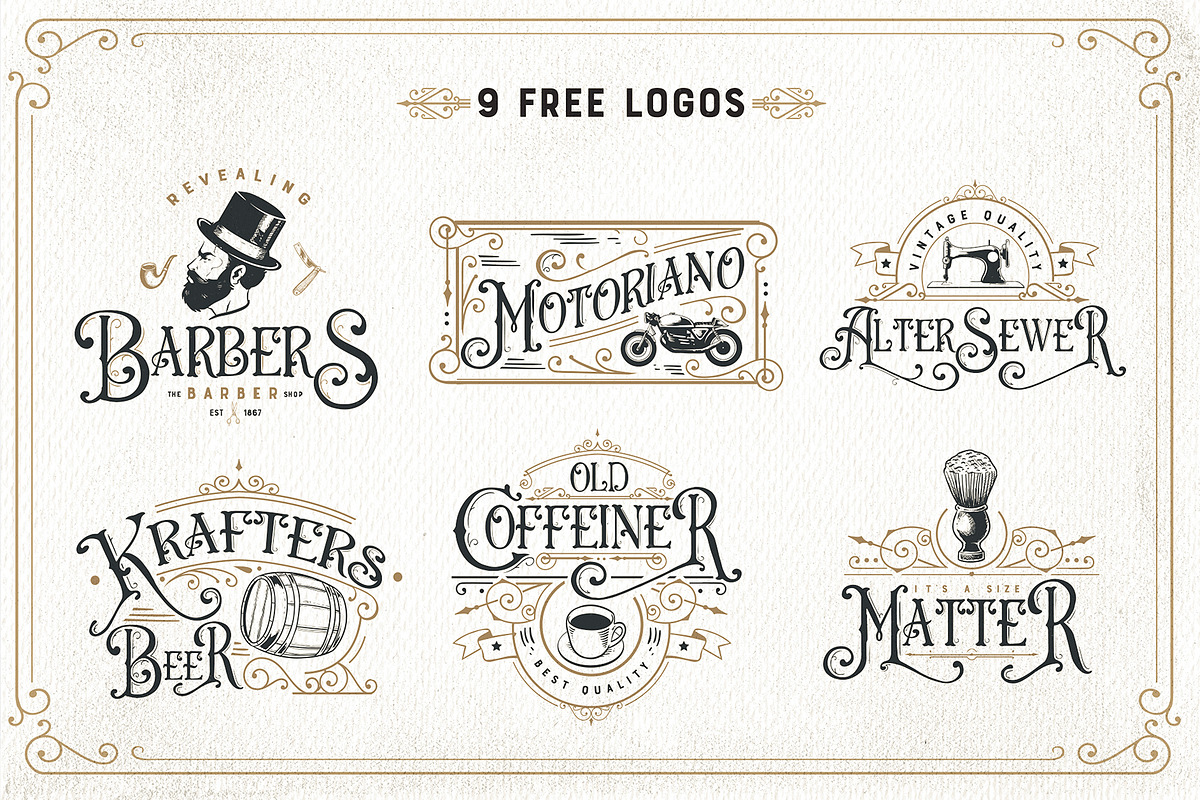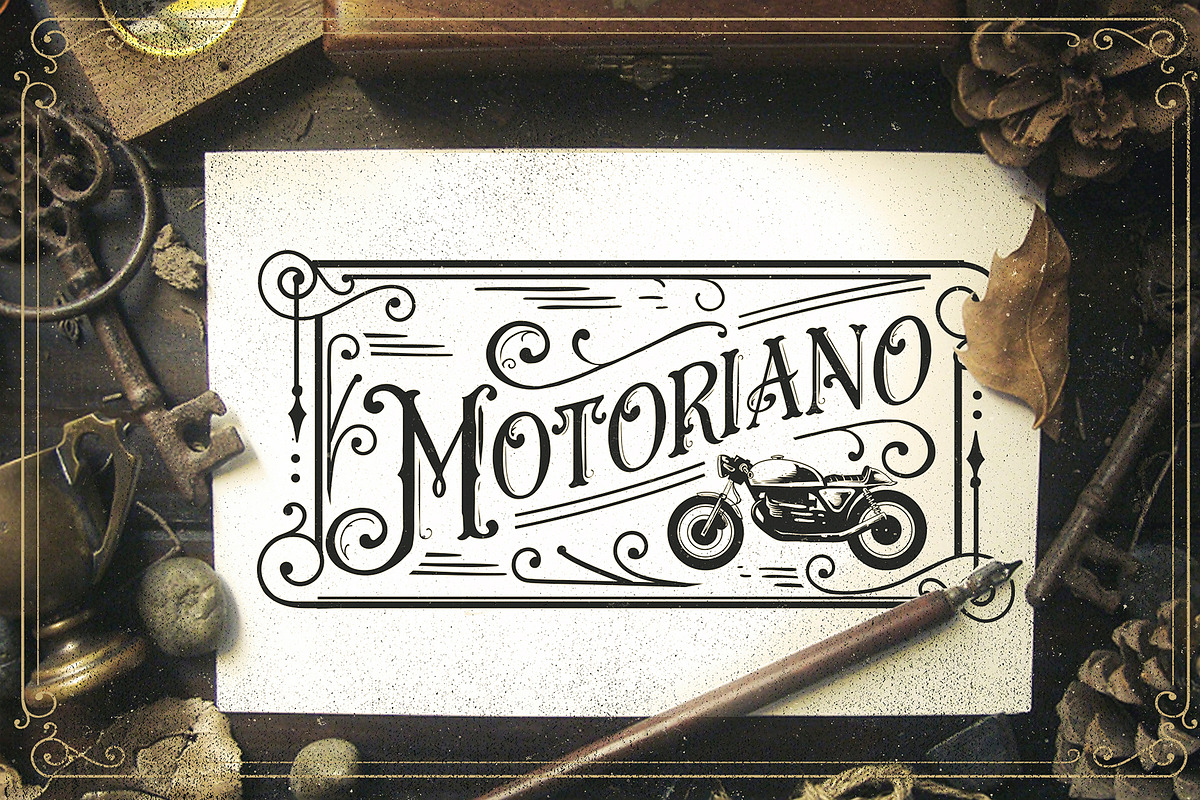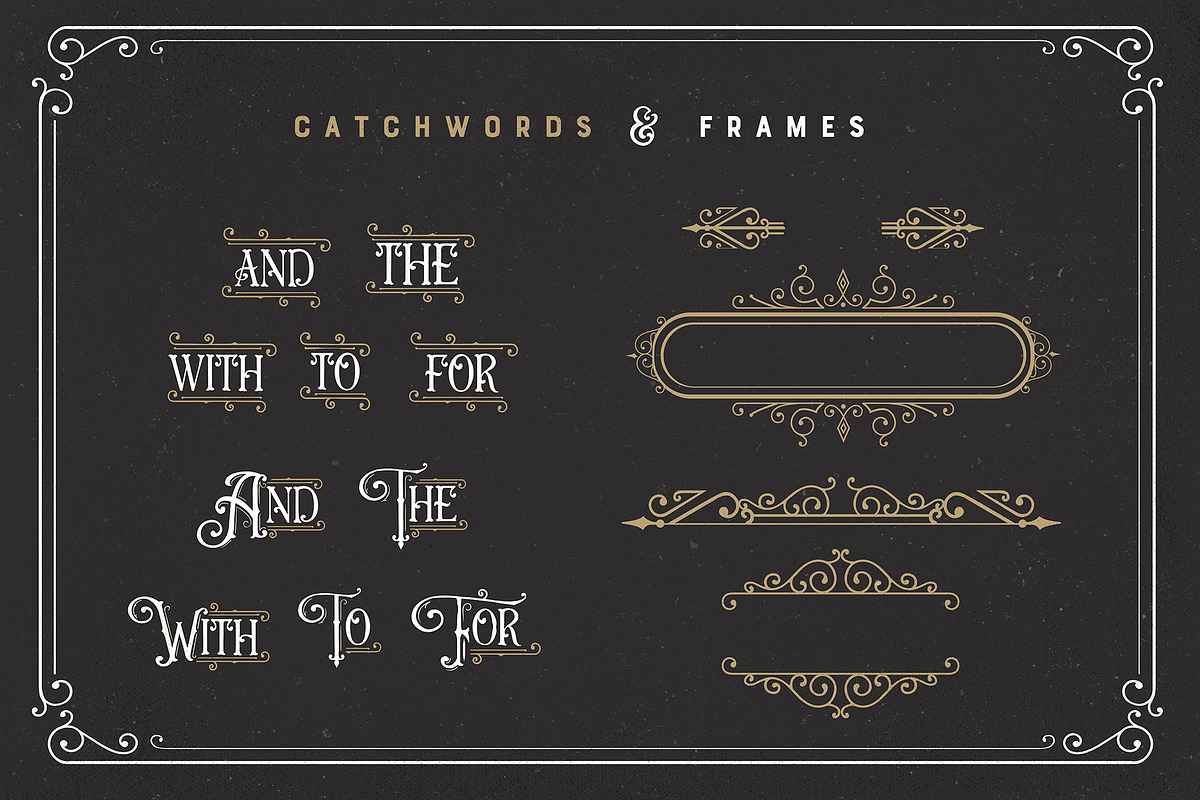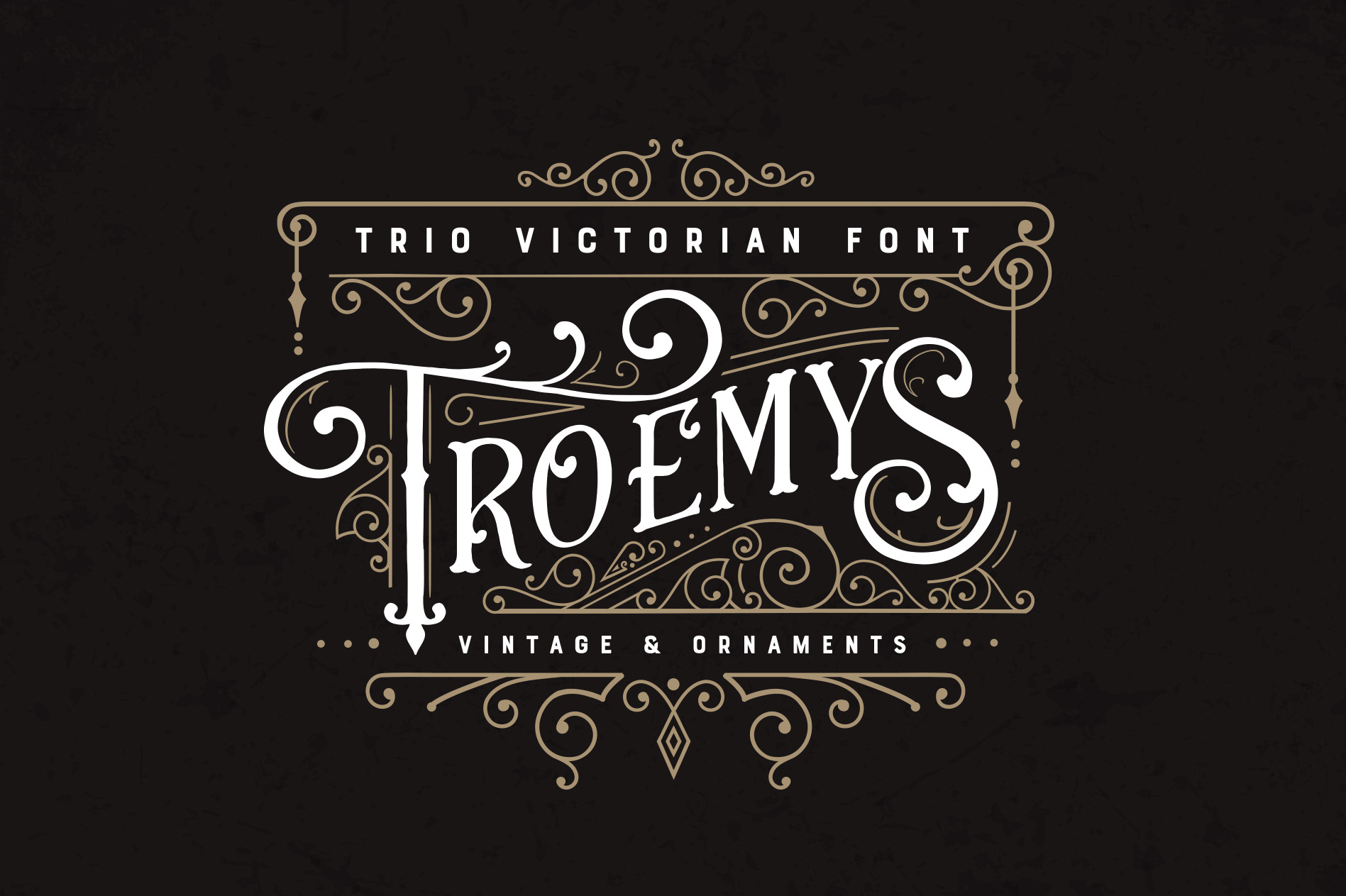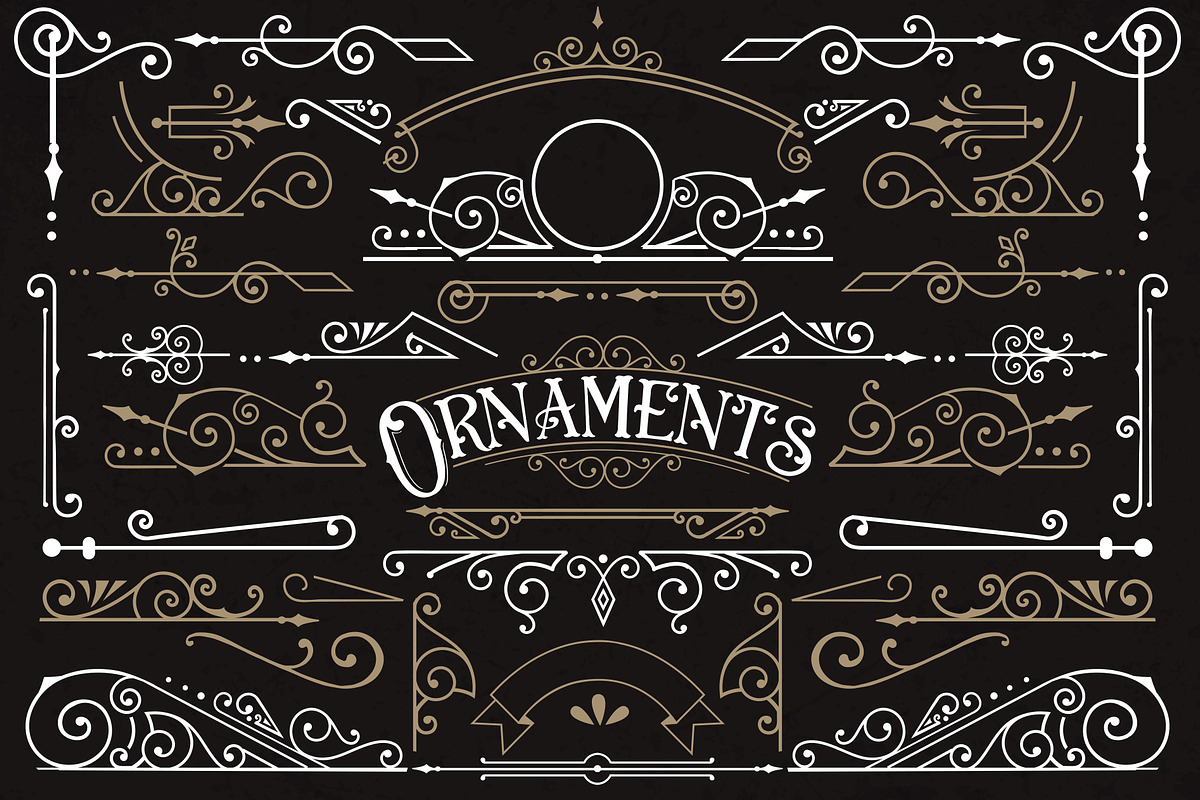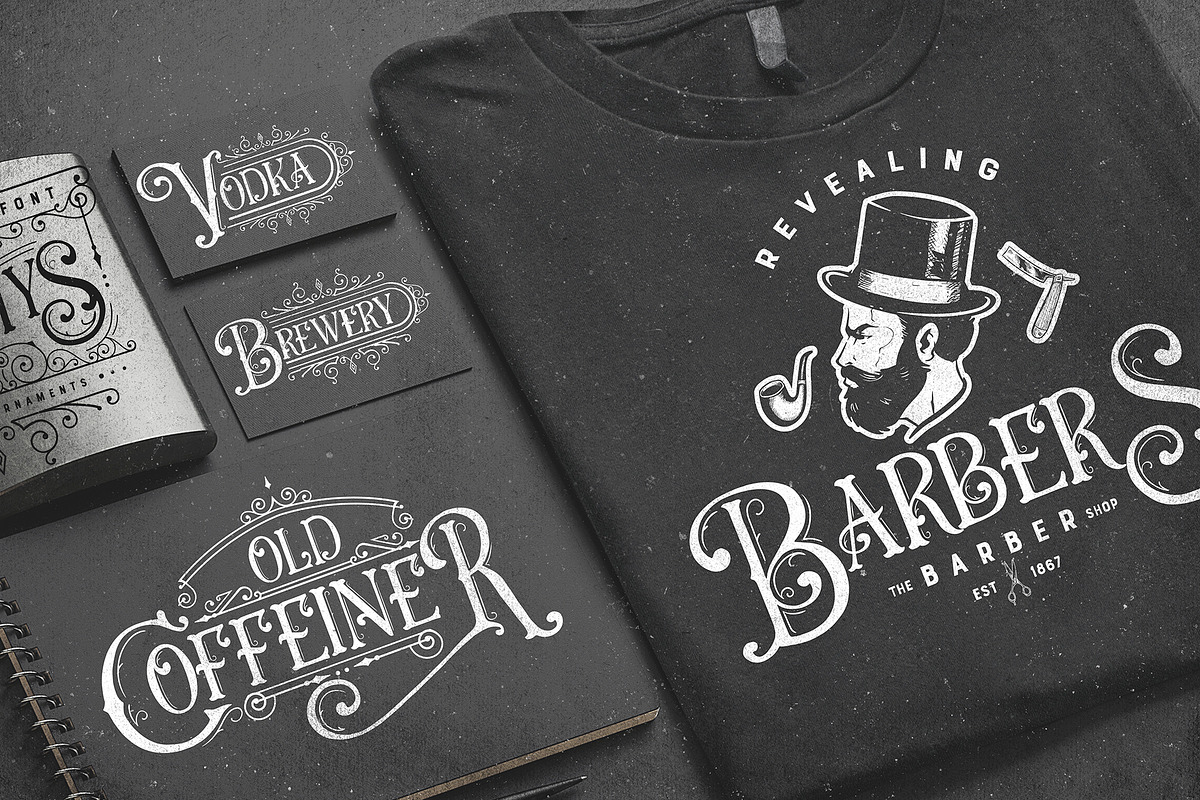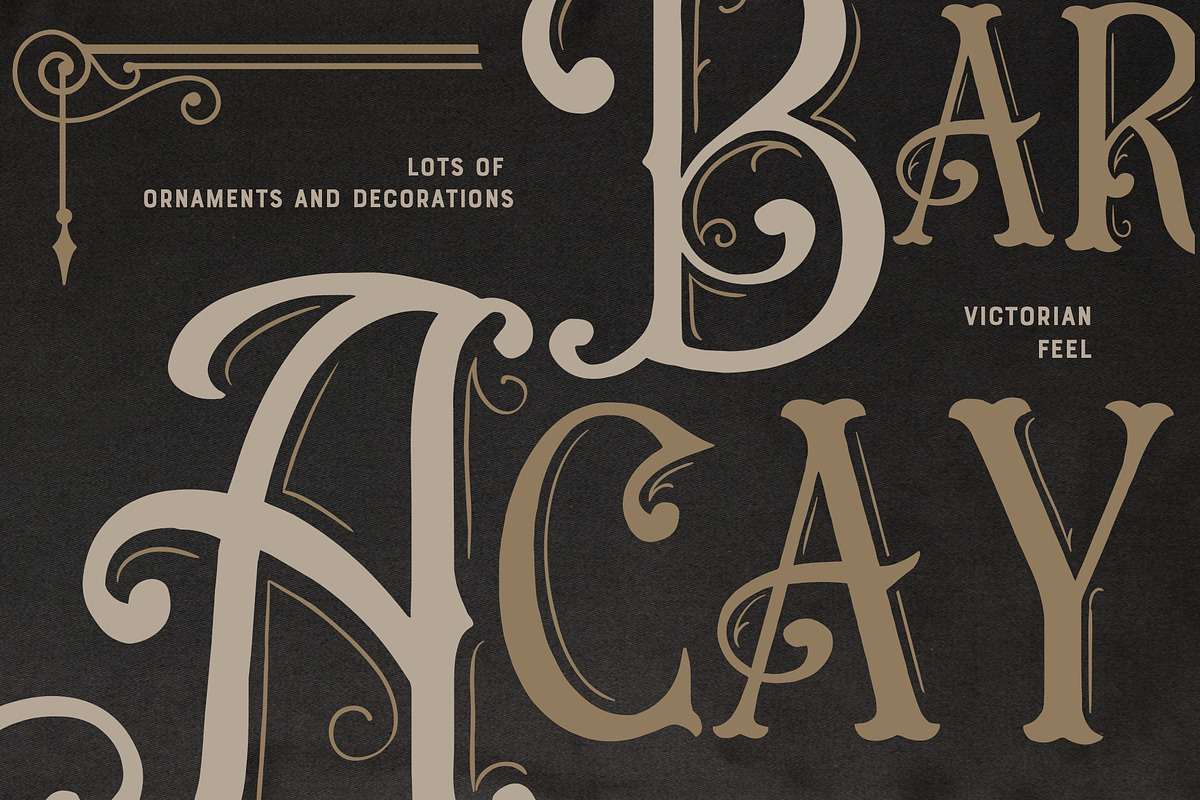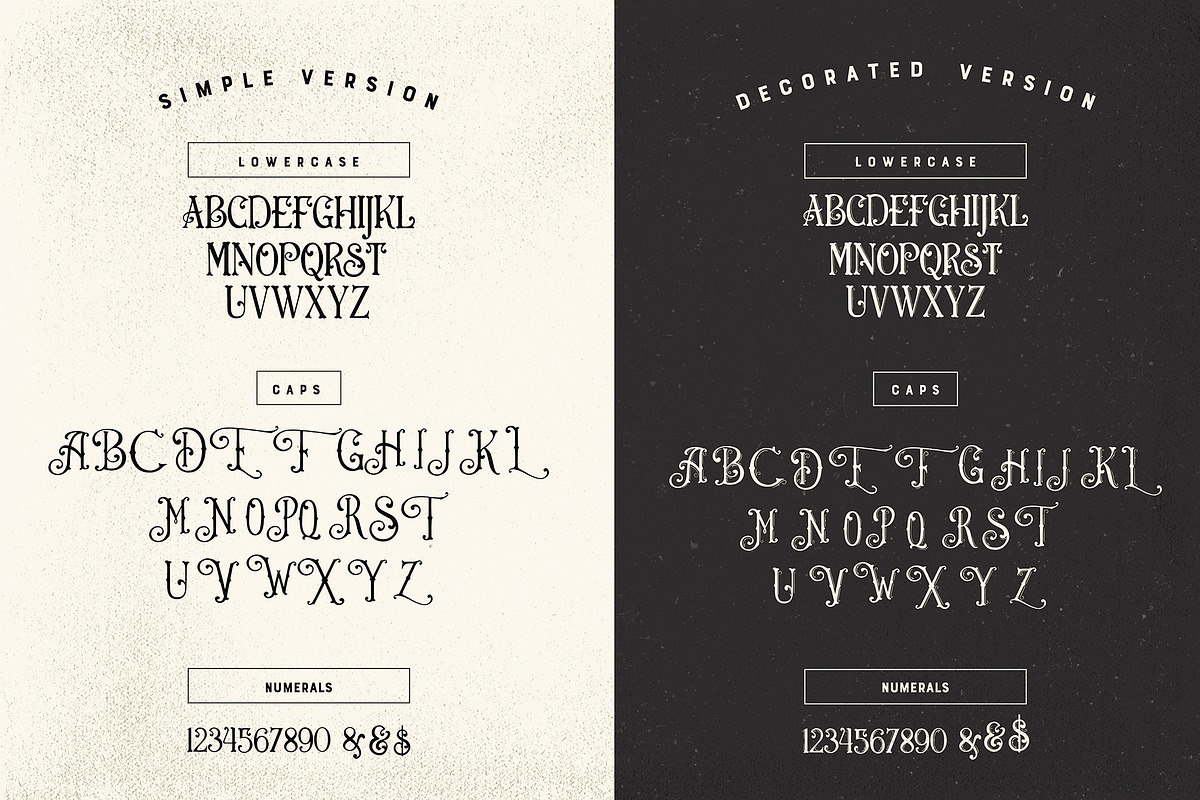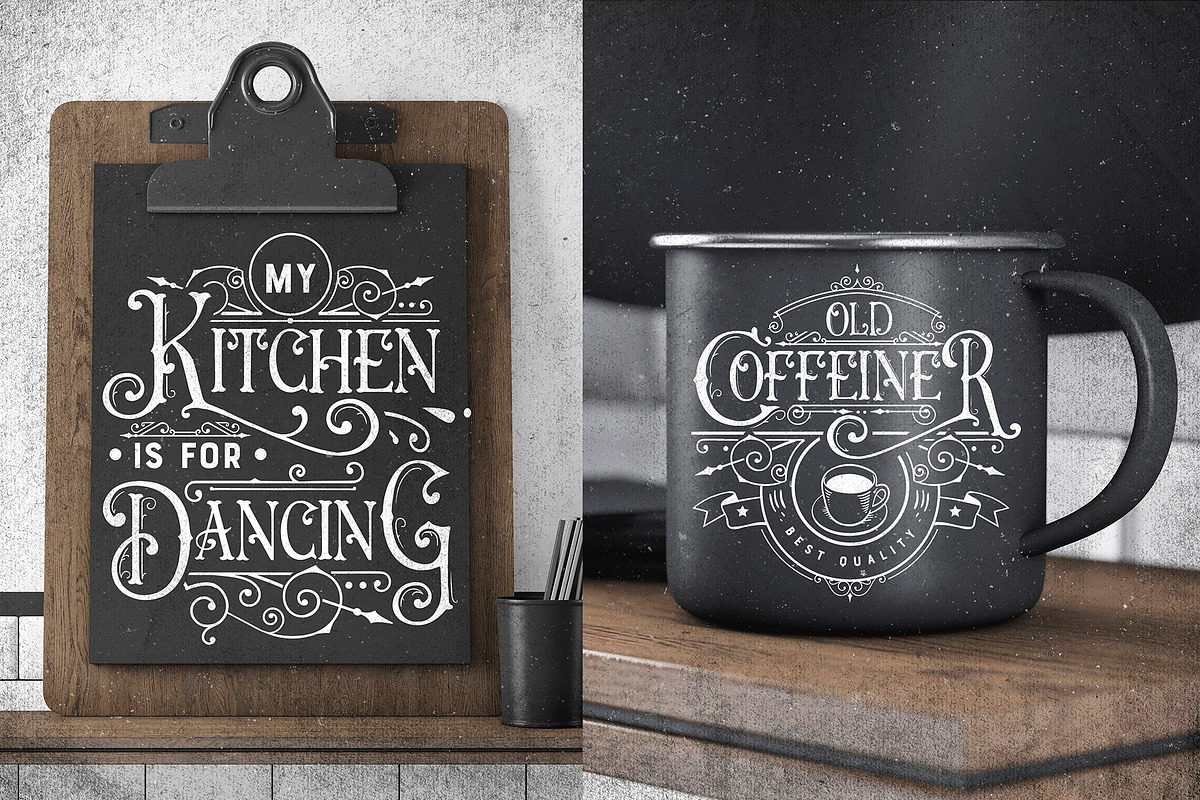
Troemys Font Trio and extras
Troemys is a trio font with a vintage, Victorian feel with lots of decorative elements, both in font format and Vector and PNG. 6 logos are also included, with editable text in layered PSD and EPS format.
For the Ornaments in TTF and OTF format, please check all of them by typing the Caps, Small Caps and also numerals .